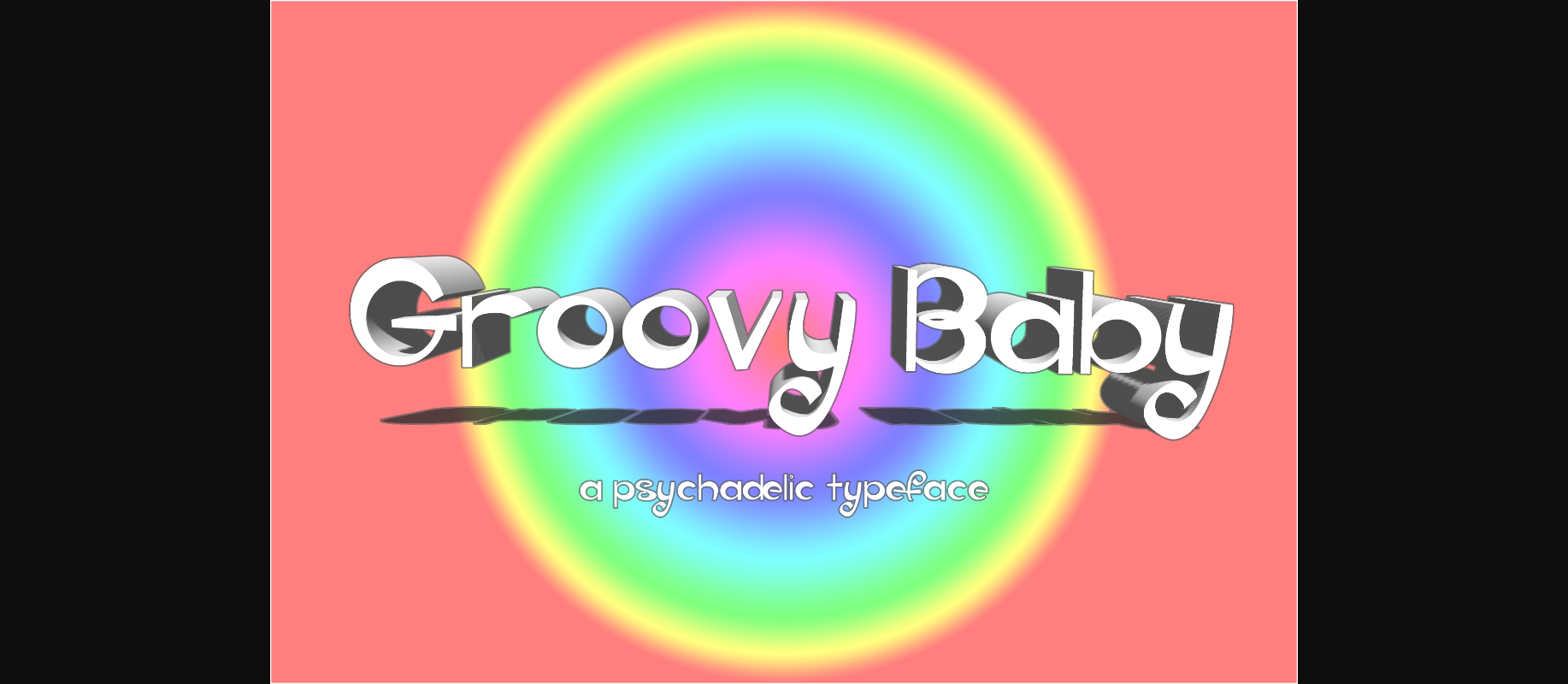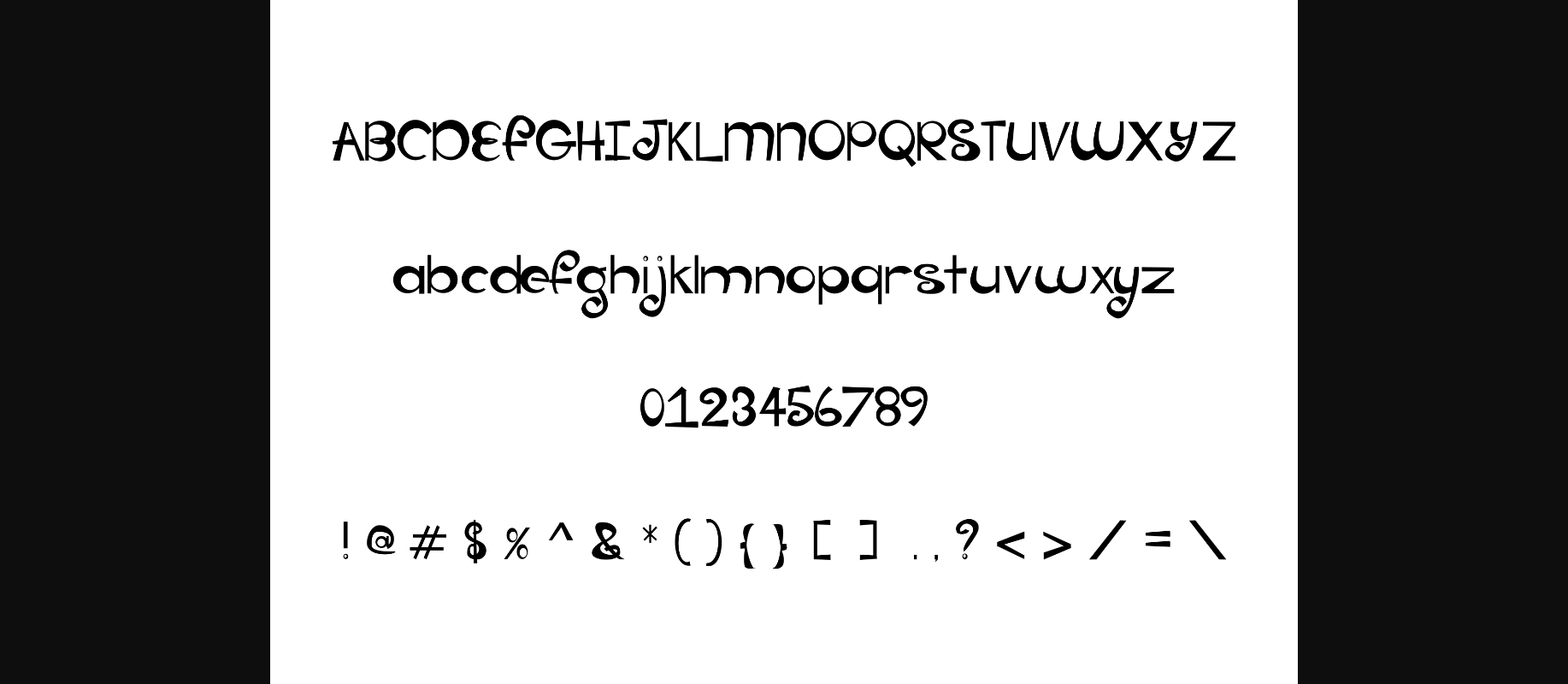
Groovy Baby Font
About Groovy Baby Font
Groovy Baby is a fun, free-spirited font that doesn’t take itself too seriously. It will add a far-out, mellow vibe to your graphics, photos, cards, websites, album art, labels, and much more!